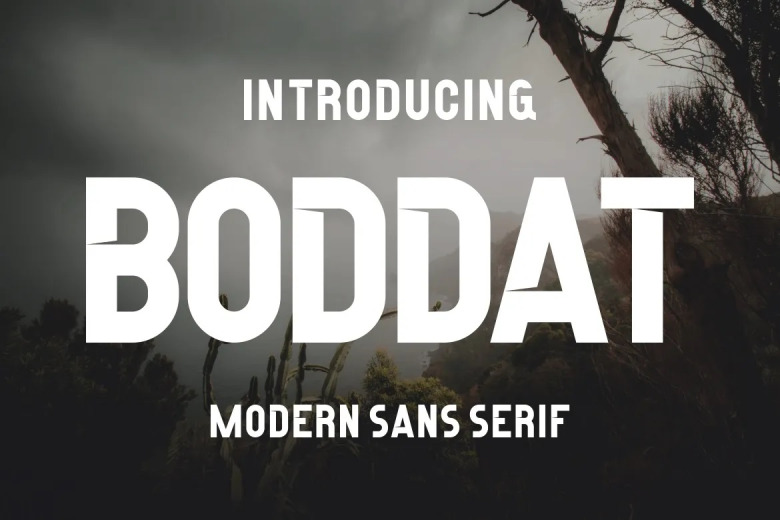
Boddat Font
Boddat is a cool, modern sans-serif font. It’s unique and balanced letters actually took this font to a piece of art. Just fall in love with it extravagant style and use it to achieve any spectacular project!
Boddat Sans Serif Font